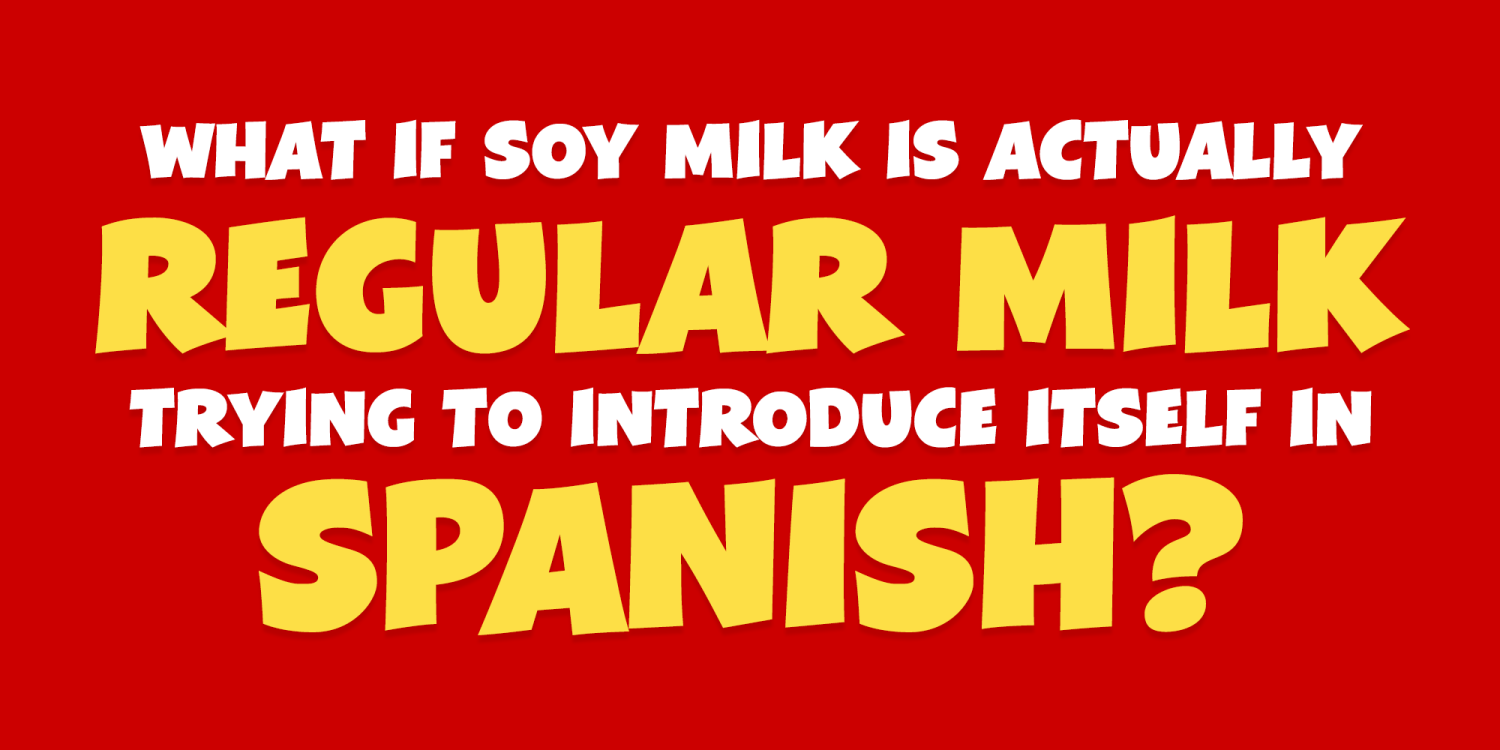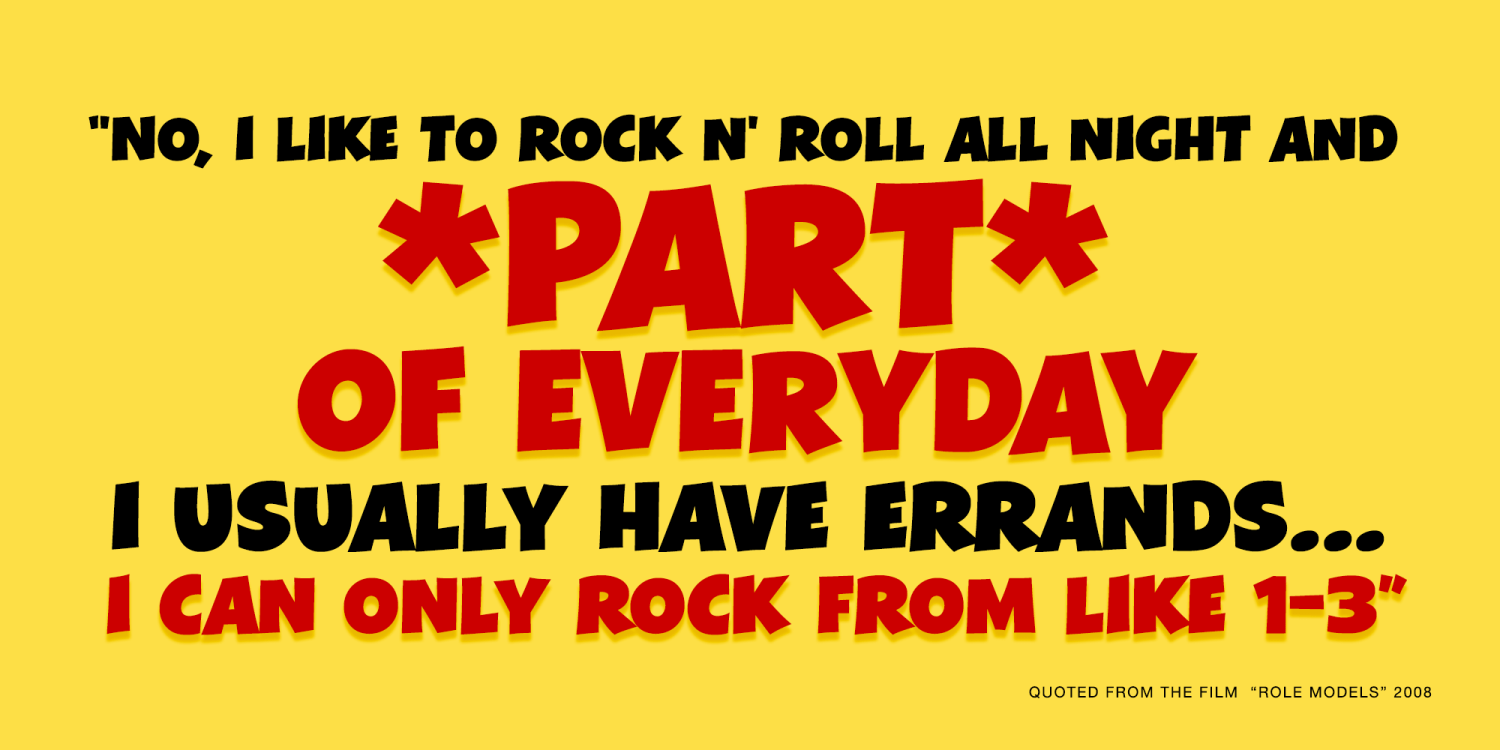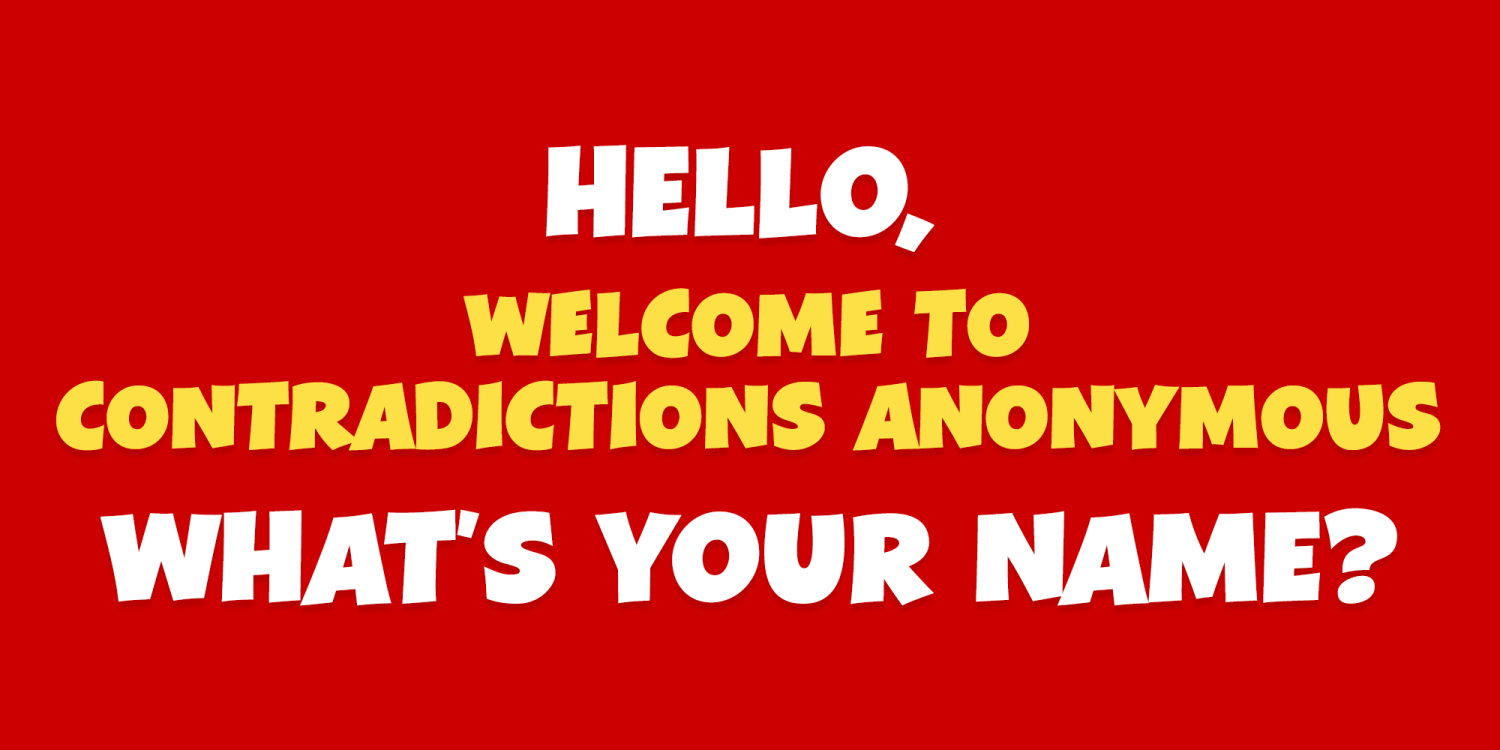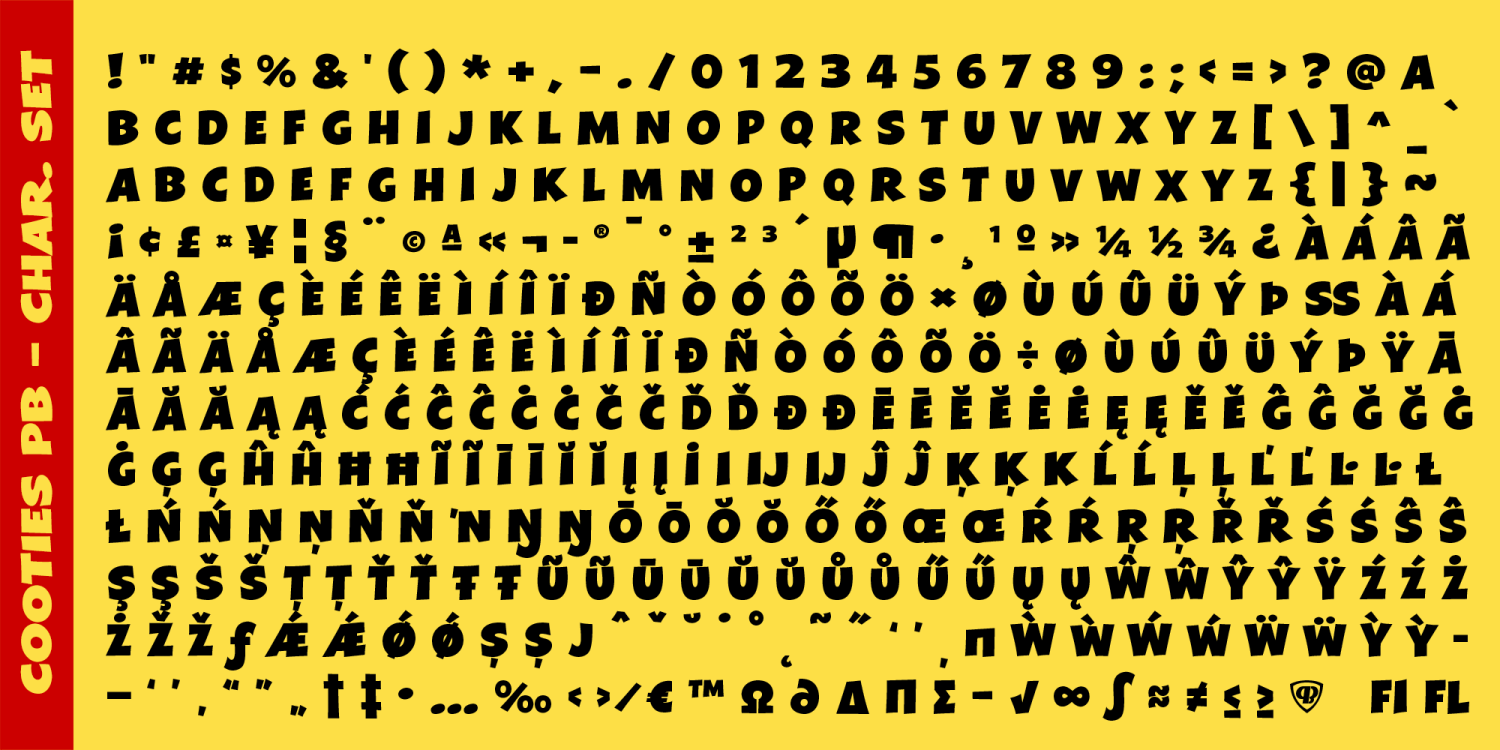
About Cooties PB
Cooties PB is a playful sans-serif font inspired by a vintage "Weet-Bix" ad promoting a "3-Biscuit Breakfast!". Imbued with subtle nuance and expressive with joy, this animated sans ever-so-slightly shies away from being a formal text face - it just wants to have fun.
Complete with alternate capitals in the lowercase positions, this font casually dances across the page. Perfect for all sorts of playful branding and designs.
The Cooties PB font family includes 384 glyphs.
Cooties PB by Pink Broccoli